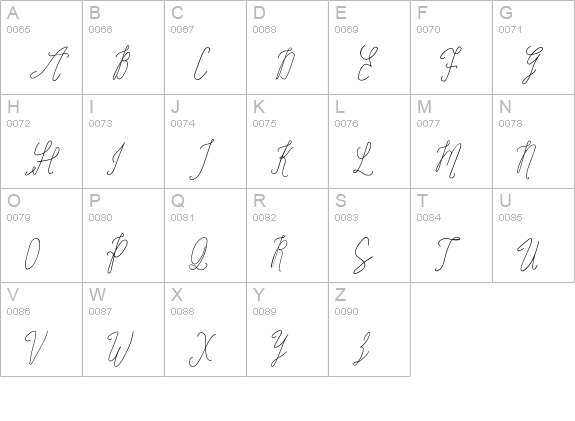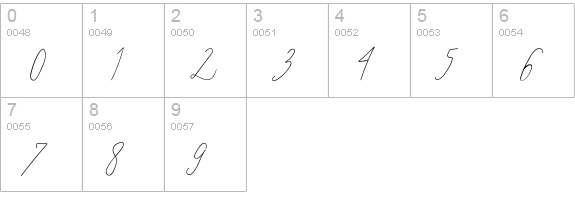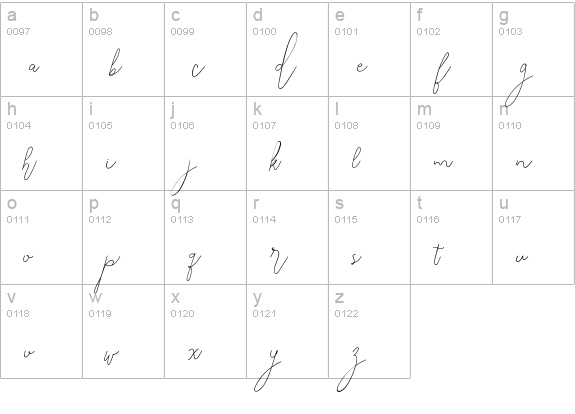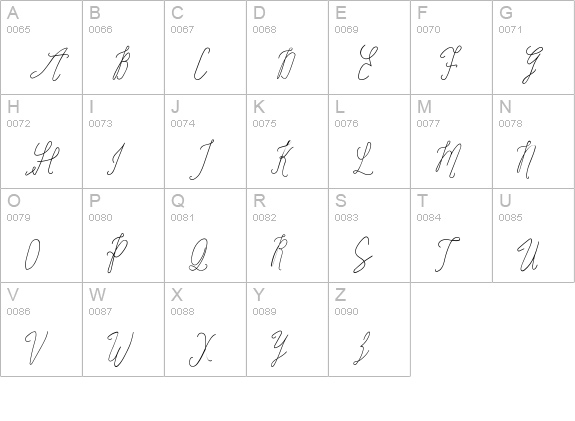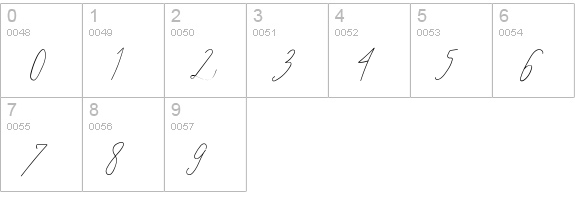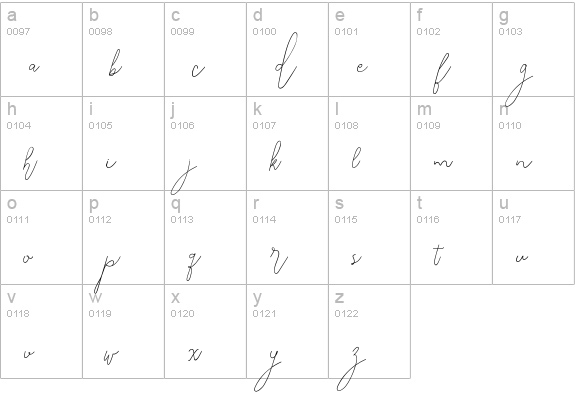
SignatureScript Font Details
SignatureScript font is a stunning and elegant typeface that exudes sophistication and style. With its flowing and graceful design, this font is perfect for adding a touch of luxury to any project. Whether you're working on wedding invitations, branding materials, or any other creative project, SignatureScript font will elevate your design and make it stand out. The best part? SignatureScript font is completely free to download at FontsMarket.com. This means you can access this beautiful font without any cost and use it in your projects without any restrictions. Don't miss out on the opportunity to enhance your designs with the timeless beauty of SignatureScript font. Download it now and let your creativity shine!